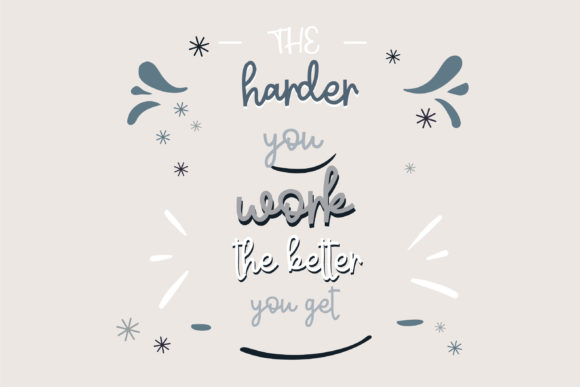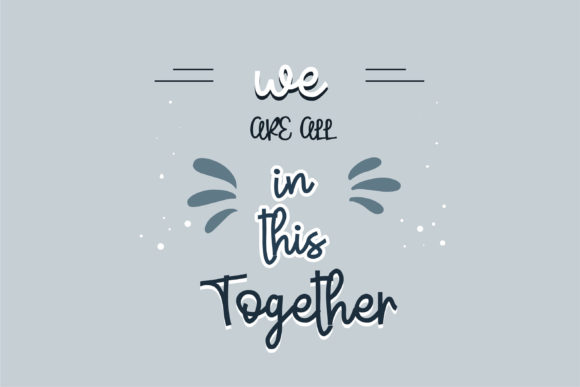
PN Pillowcase Font
db-ku.com - Script & Handwritten -- PN Pillowcase is a sweet, bouncy and chic handwritten font. No matter the topic, this font will be an incredible asset to your fonts’ library, as it has the potential to elevate any creation.